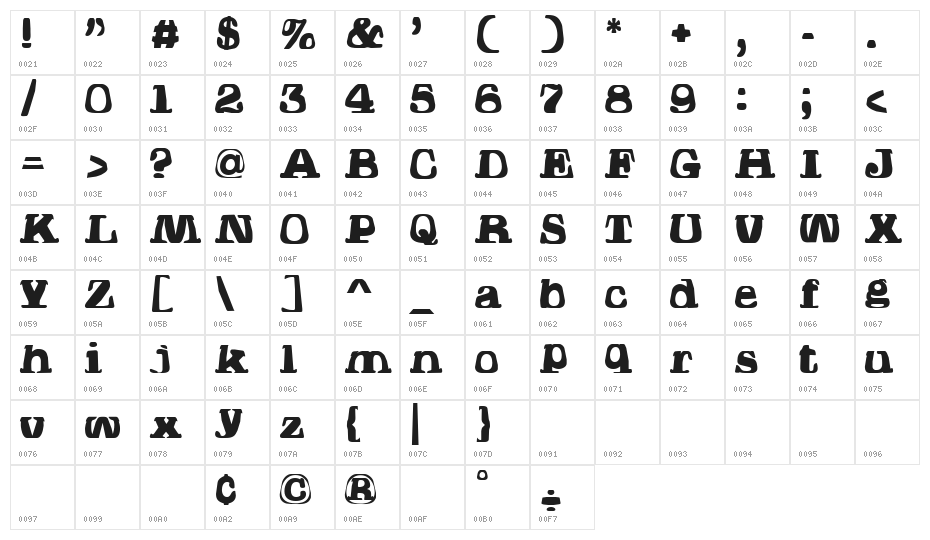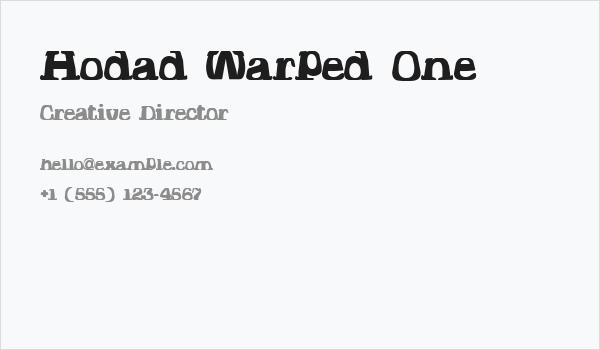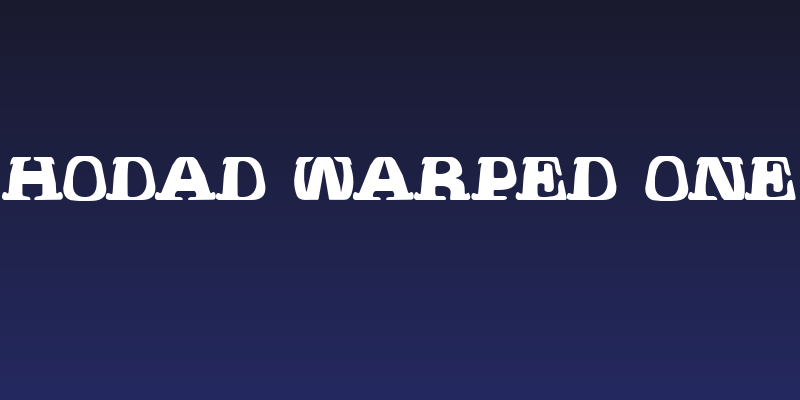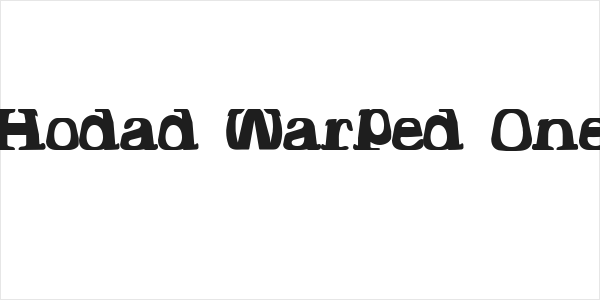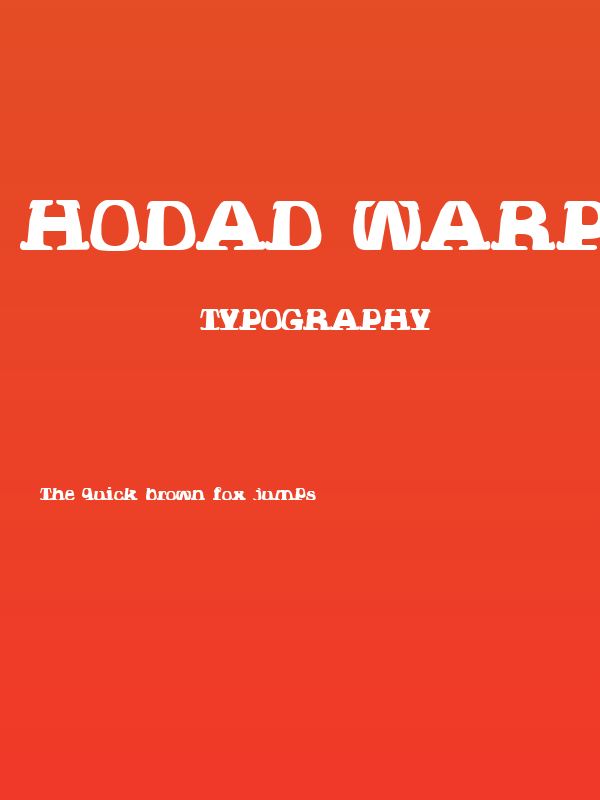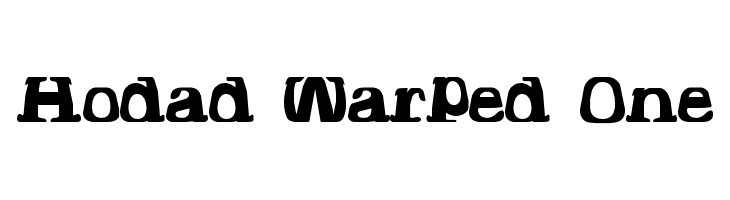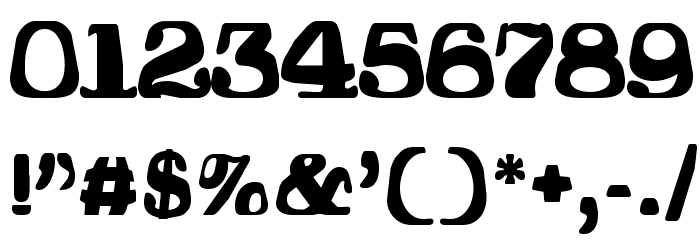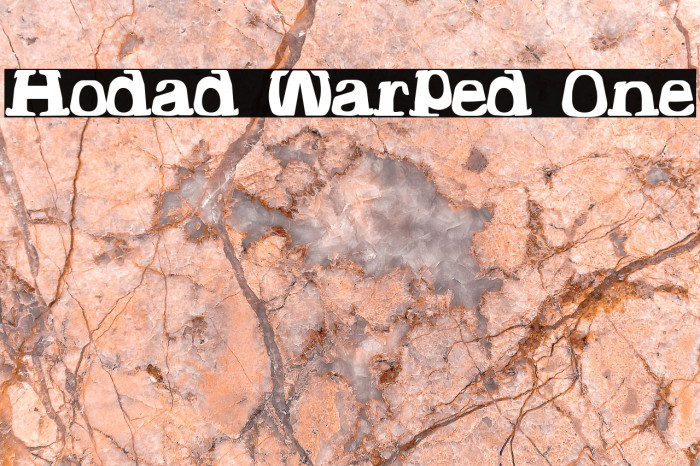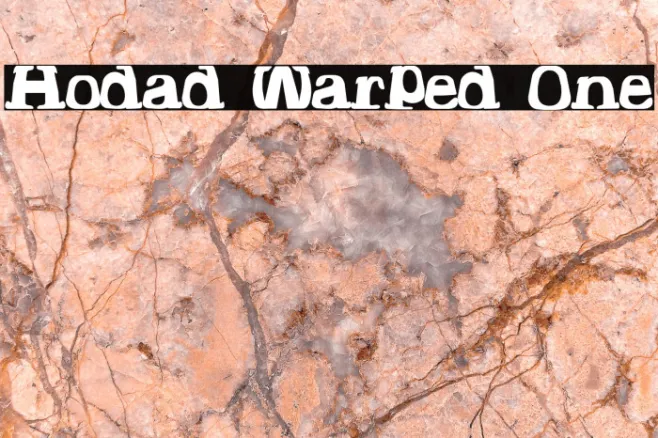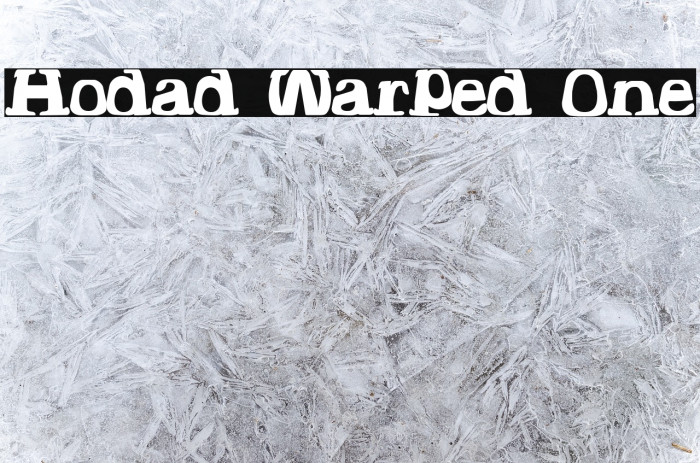
Hodad Warped One Font
Hodad Warped One Description
This font features a bold and playful design with a distinctly warped and distorted appearance. The characters exhibit a unique blend of thick and thin strokes, creating a dynamic and eye-catching effect. The uppercase and lowercase letters maintain a consistent style, with exaggerated curves and a slightly retro feel. Numbers and special characters follow the same design principles, ensuring a cohesive look across all glyphs. The font's quirky and unconventional style makes it ideal for projects that require a fun and informal touch.
| Proposed Projects | Perfect for posters, album covers, children's books, and creative branding. |